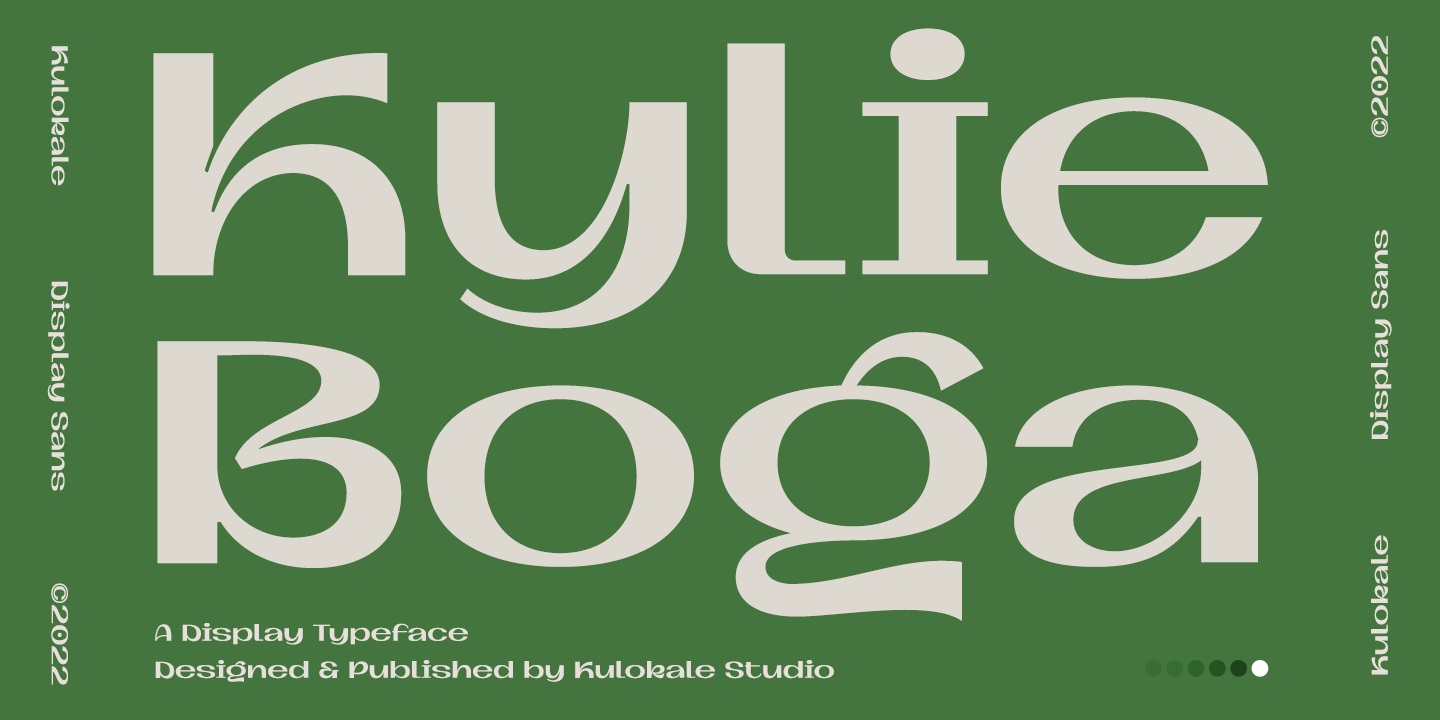
Kylie Boga Font is perfect for personal branding blogs, creative lifestyle magazines, artistic portfolio designs, boutique fashion labels, modern wellness centers, and contemporary social media graphics.
Kylie Boga Font is exciting because it embodies contemporary femininity and artistic sophistication, delivering a stylish typeface that captures modern elegance, creative expression, and the confident spirit of today's empowered women.
The Kylie Boga Font family includes stylish variations: Kylie Boga Light, Kylie Boga Regular, Kylie Boga Bold, artistic alternates, and contemporary decorative elements that enhance the font's modern feminine character.
Express your unique style with Kylie Boga Font Free Download, a beautifully contemporary typeface that brings modern femininity and artistic flair to your most personal and creative design projects. This sophisticated font excels in creating memorable branding for lifestyle influencers, creative entrepreneurs, beauty consultants, and artistic professionals who want to communicate authenticity, style, and contemporary sophistication. The elegantly crafted letterforms feature flowing curves and balanced proportions that reflect modern calligraphy trends while ensuring excellent readability across all personal branding applications. Perfect for Instagram story templates, personal website designs, creative workshop materials, and lifestyle brand communications that need to convey artistic sensibility and contemporary style, this font connects with audiences who appreciate modern aesthetics and authentic self-expression. Each character flows with contemporary grace, making every personal message feel like a signature style statement that reflects individual creativity and confident femininity. Kylie Boga Font transforms personal communications into stylish expressions that celebrate modern women's voices and inspire authentic connections in today's digital creative landscape.